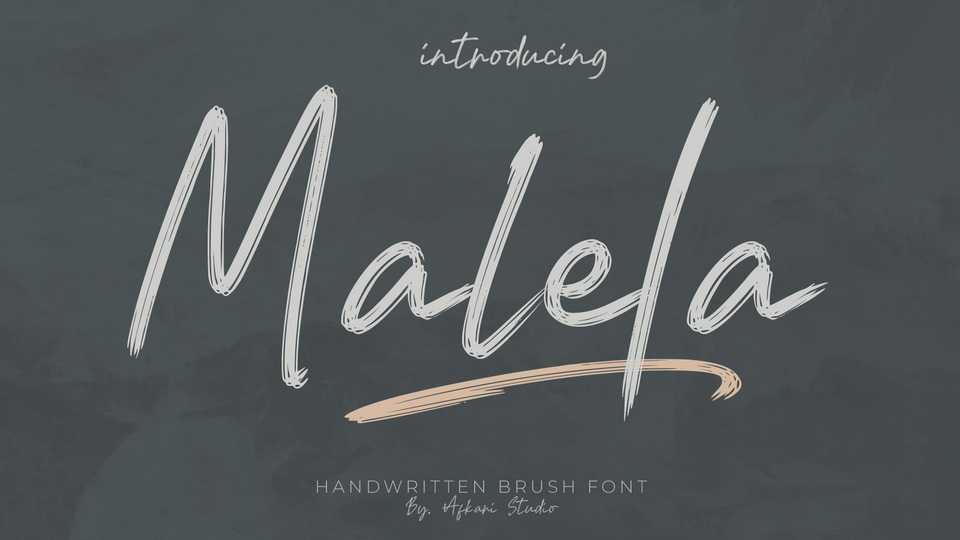
Download Malela font, a natural handwritten brush script that creates a natural line flow. Malela font is suitable for any branding of your design needs, studio brand, logo, homeware designs, product packaging and so on.
Designer: Afkari Studio